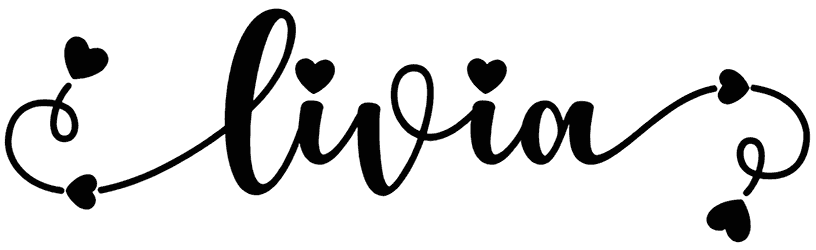
Livia Font
Livia arrives with ornate and classic letters that do not stop being feminine thanks to their delicate curves of unique strokes. Enjoy the eye-catching love font, which you can customize with pastel colors and gradients. Try it out for poster prints, wedding stationery, and homemade products, but it seems to be hard to read. Livia font is at the point of finding its place everywhere.